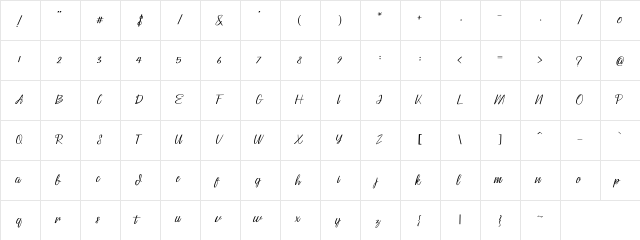
Husna Regular
Design Context for Husna Typeface
Husna is a composed and adaptable typeface that performs quietly and consistently across a wide range of design contexts.